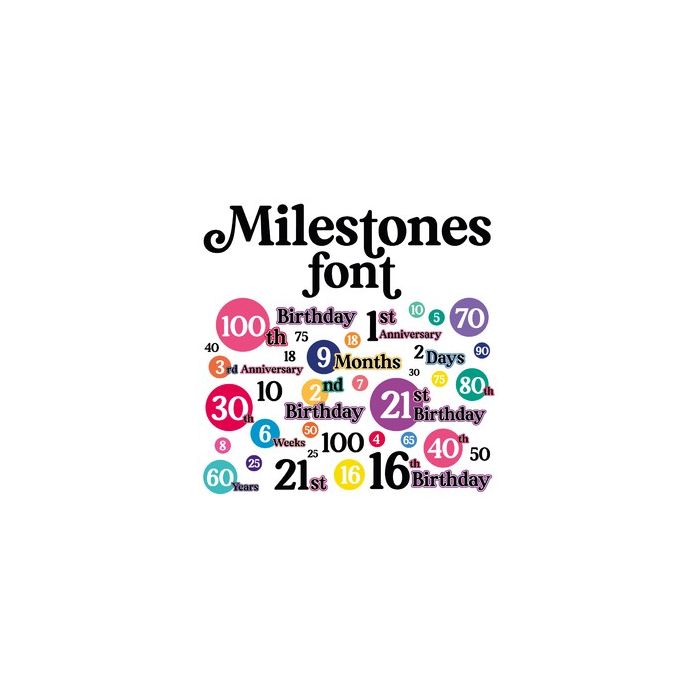
Milestones Font - Contains Numbers and Milestone Numbers (16, 18, 21, 30, 40, 50, 100 etc...) plain and with a circular background to create your own titles, sentiments, banners and more to celebrate and mark your special occasions. Uppercase letters are numbers on circular background, lowercase numbers are stand alone numbers and number keys have all the accessories you need allocated to them to finalise your numbers! All are also available via the glyphs panel / character map.